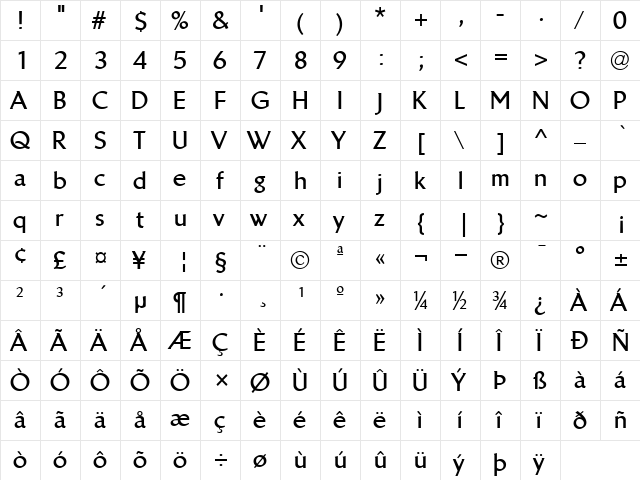
LTBrewery Light Bold
LTBrewery Light offers clean, dependable letterforms without strong stylistic allegiance, making it a practical choice for designers who need flexibility. Its bold stroke weight gives it real presence on the page.